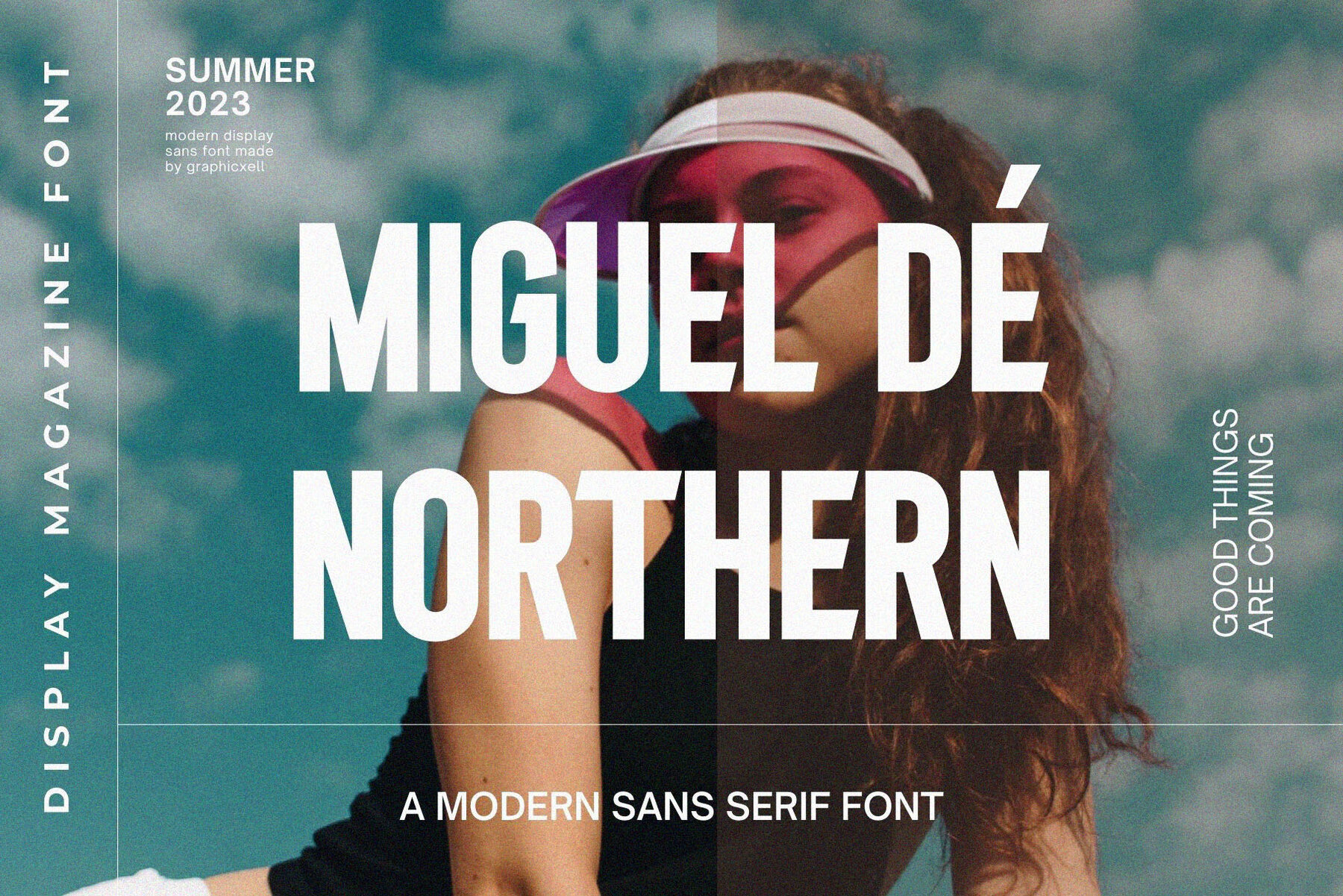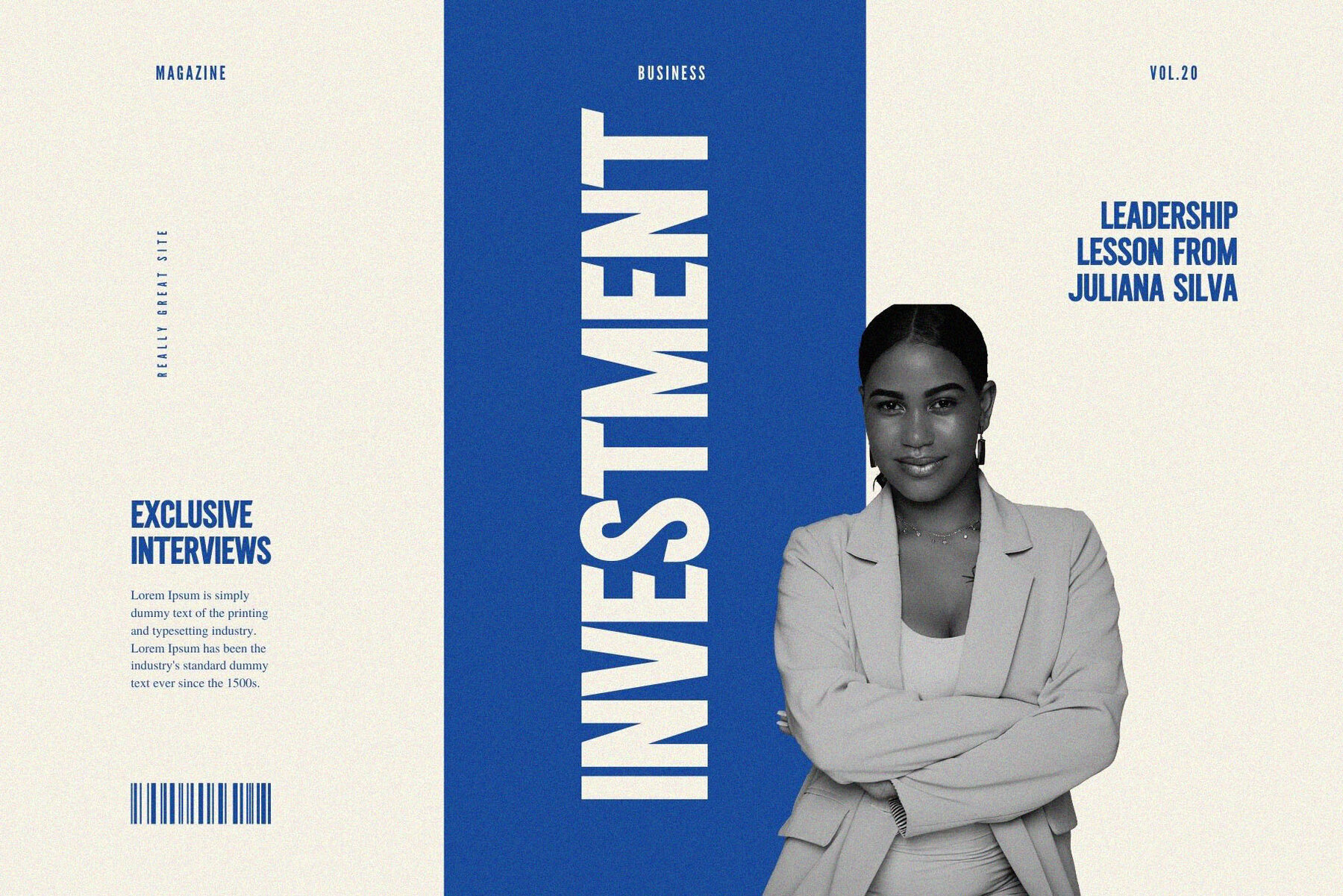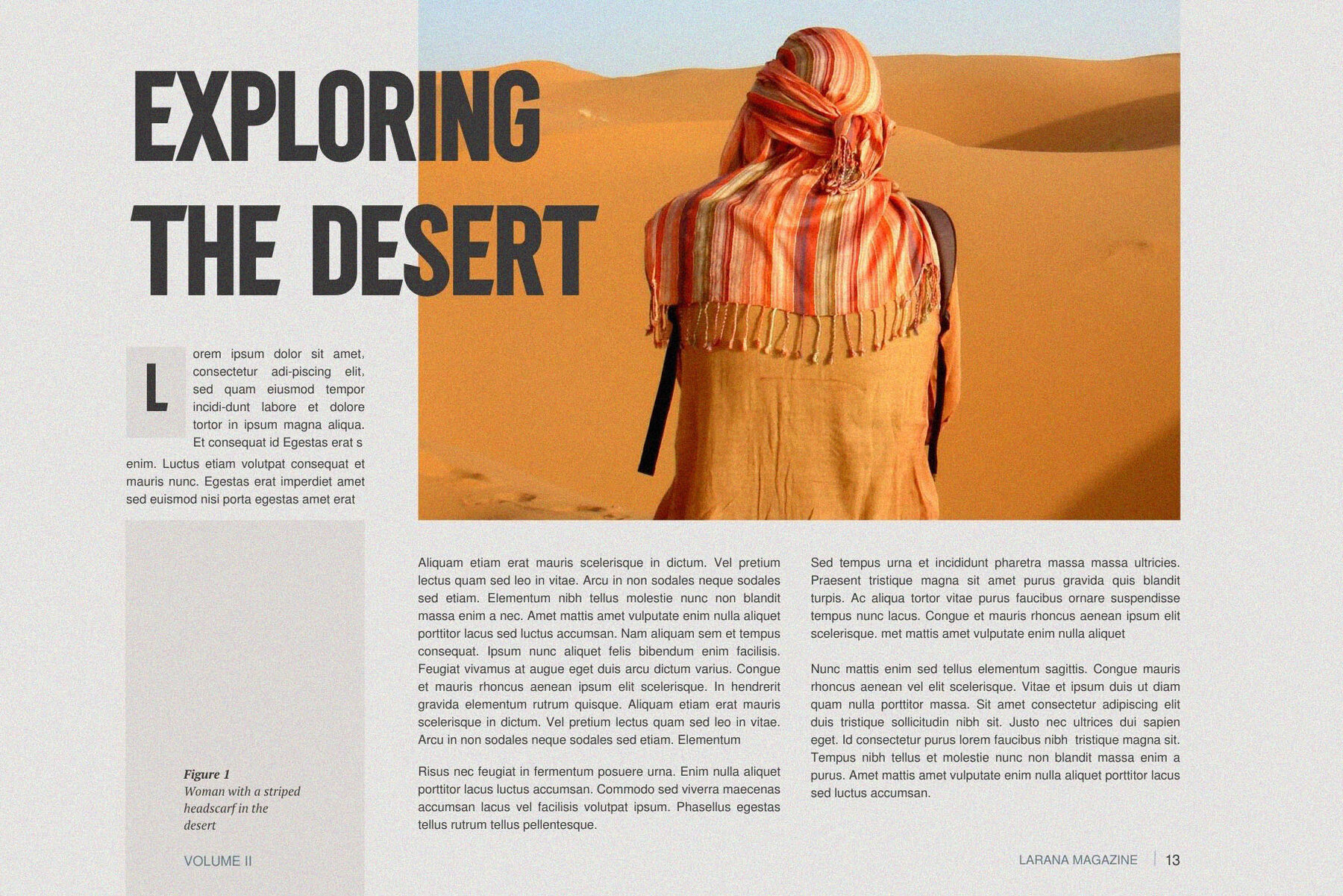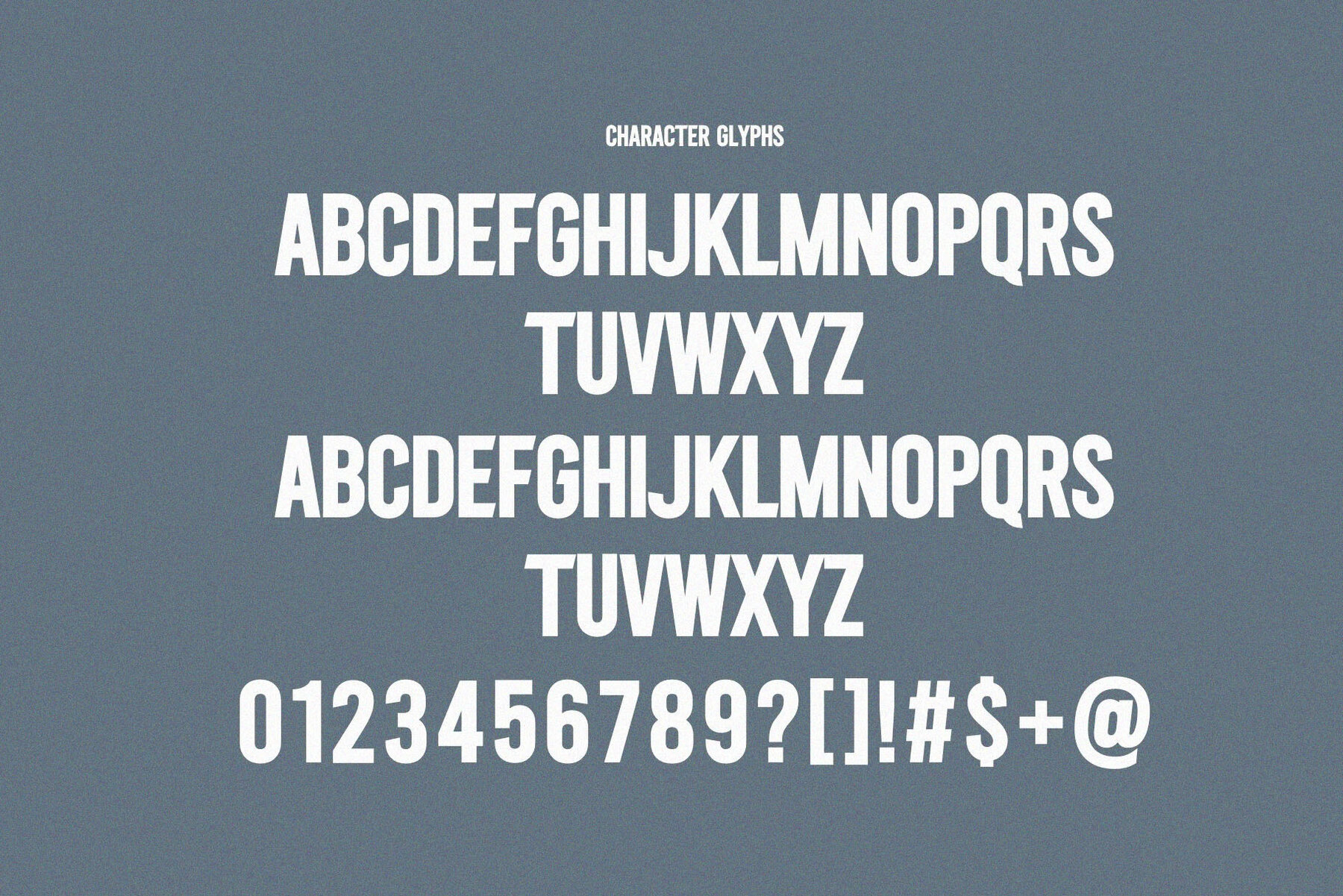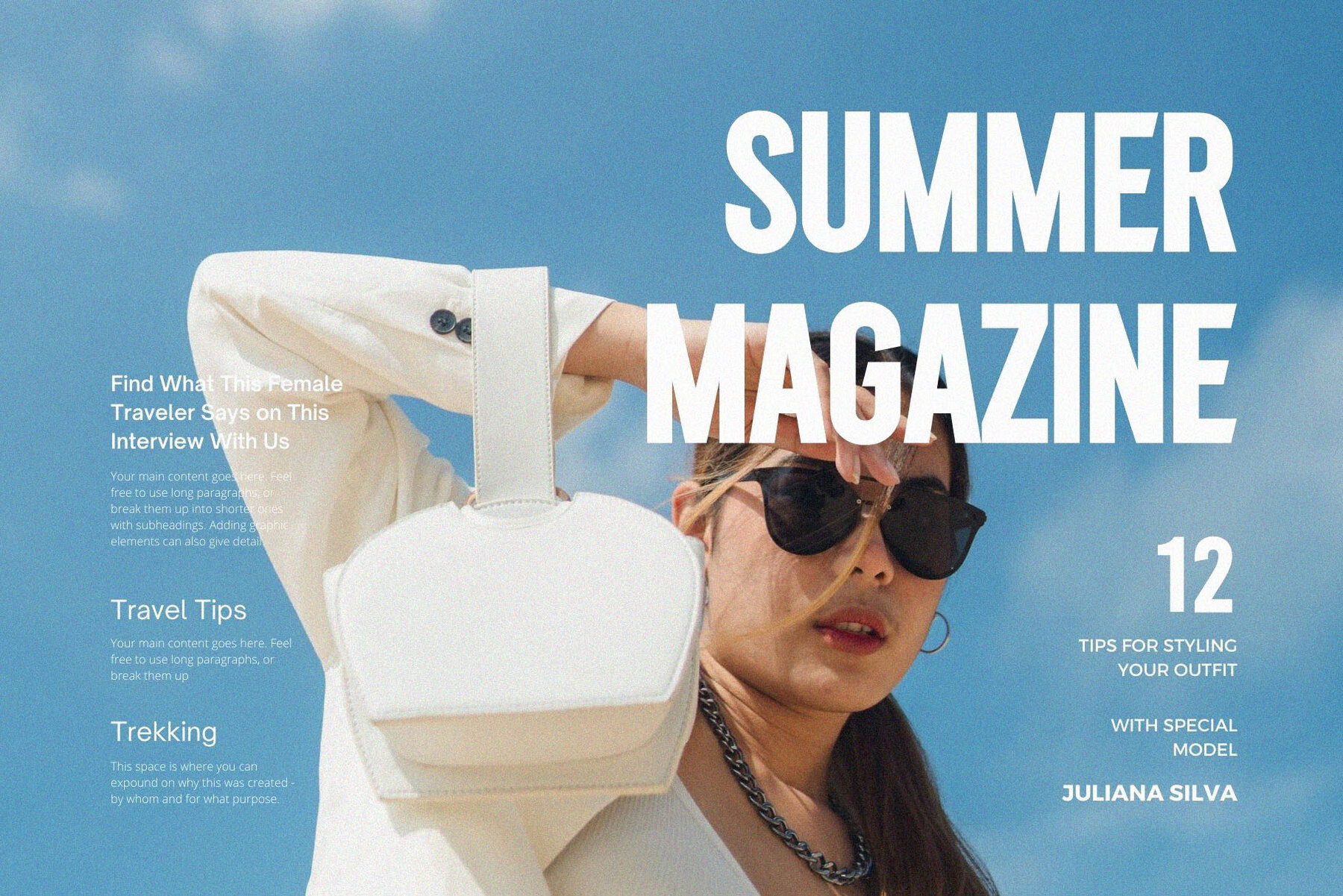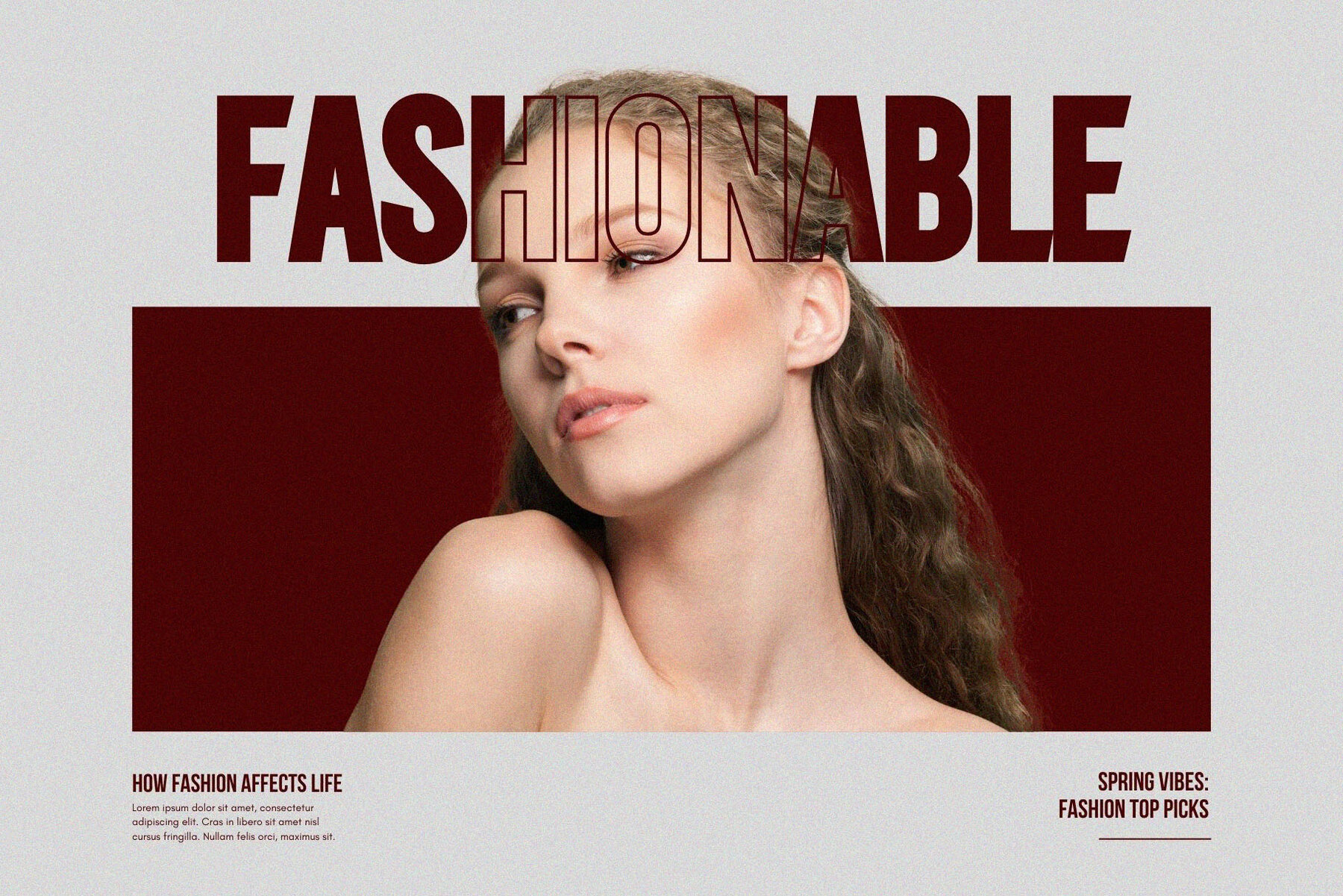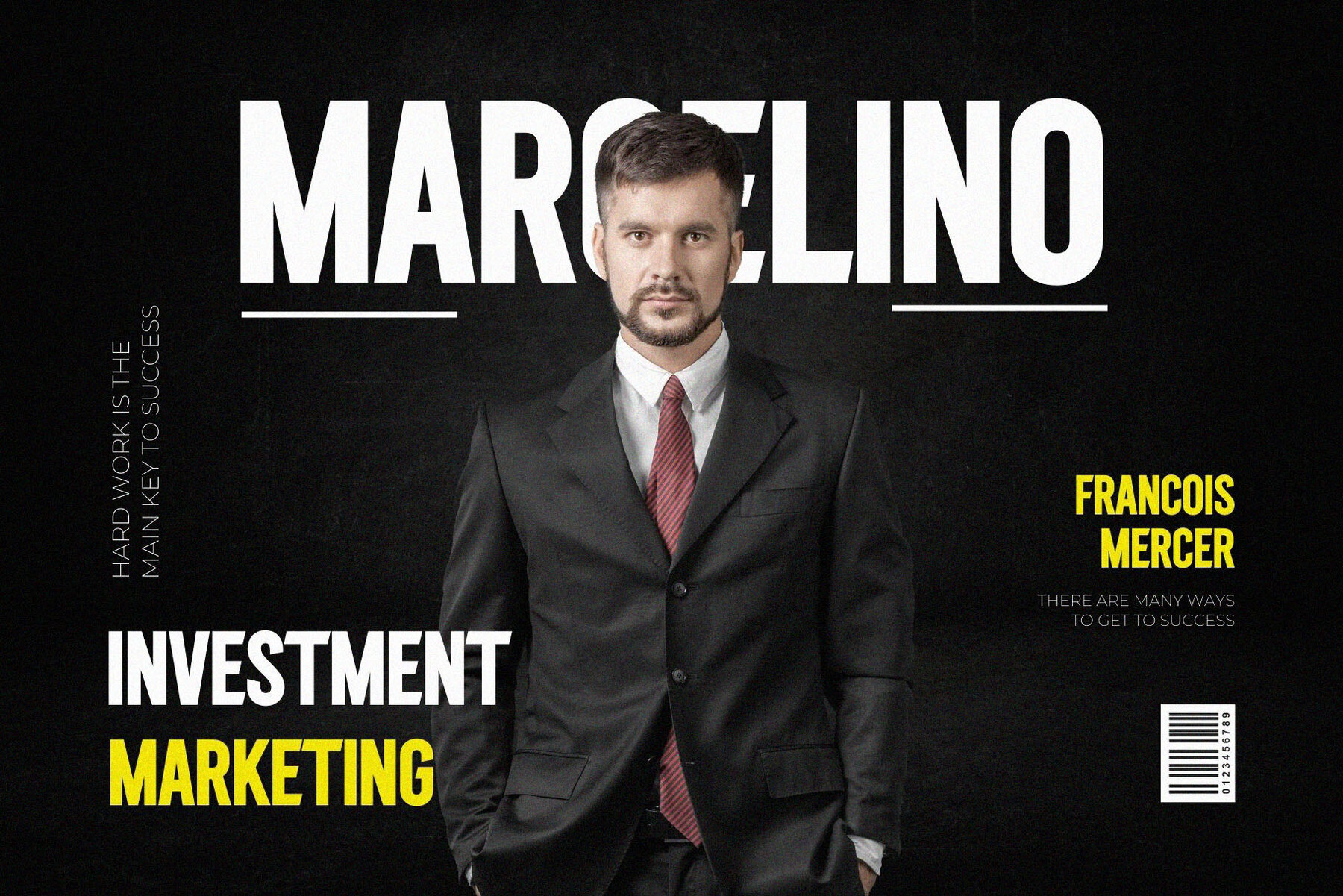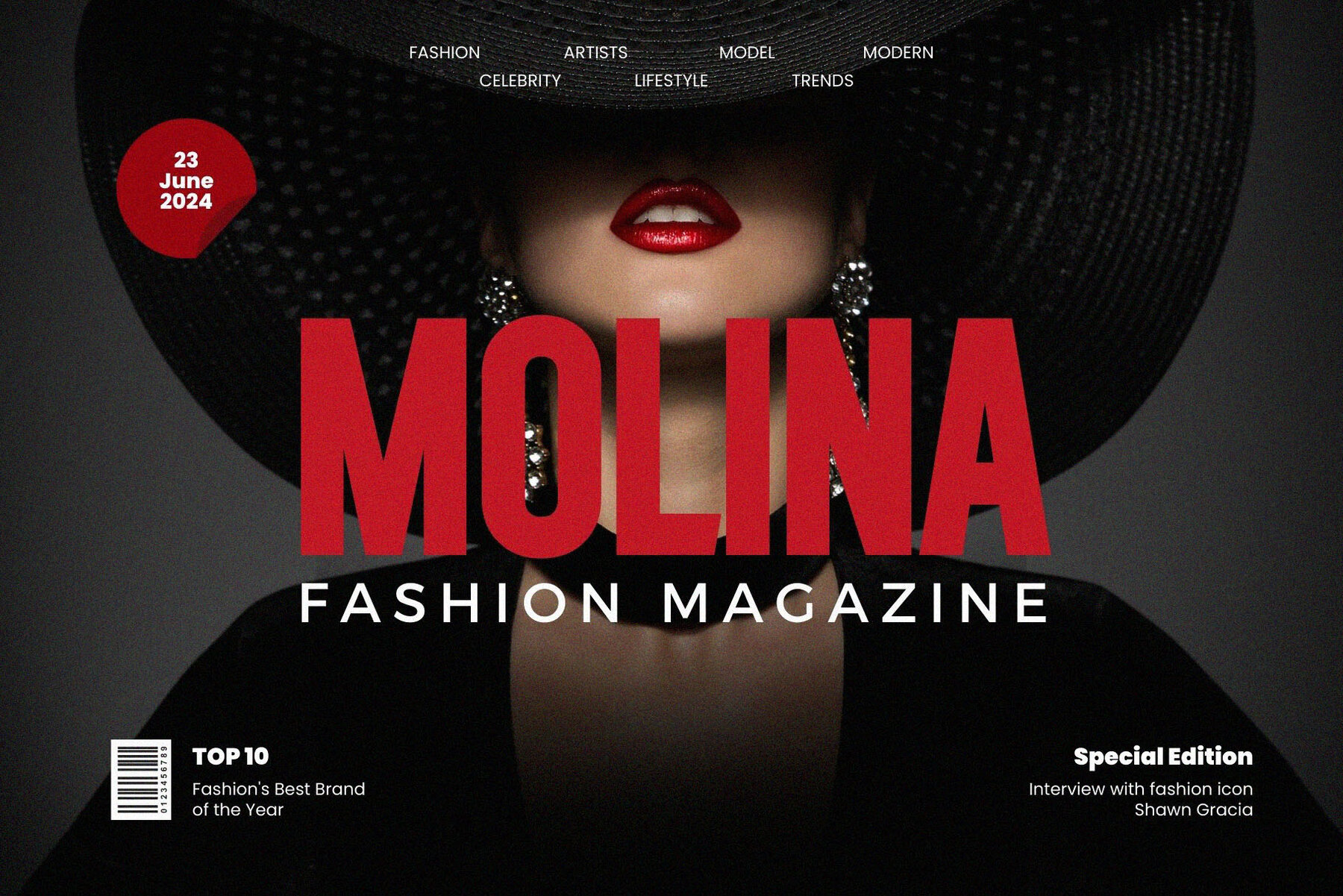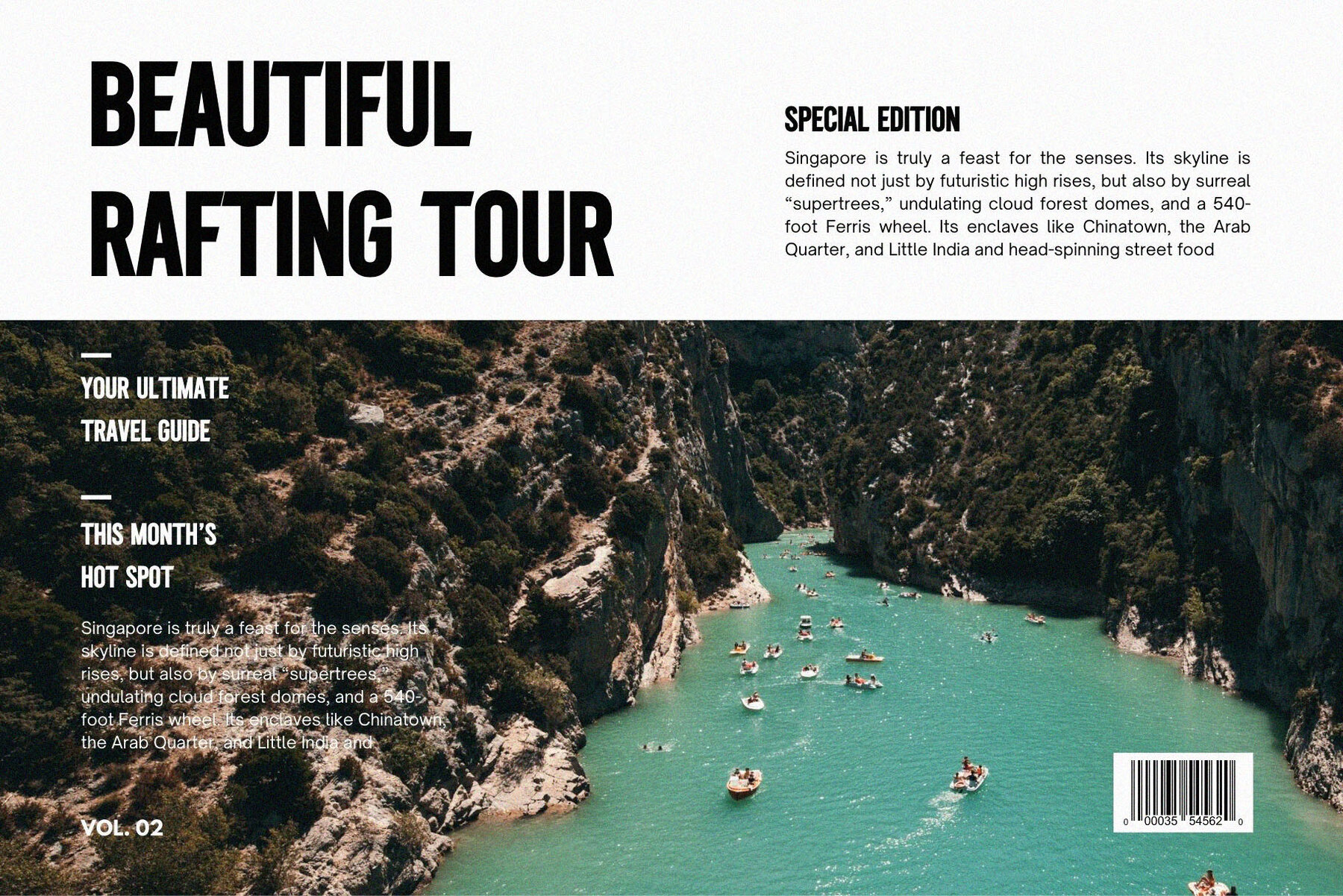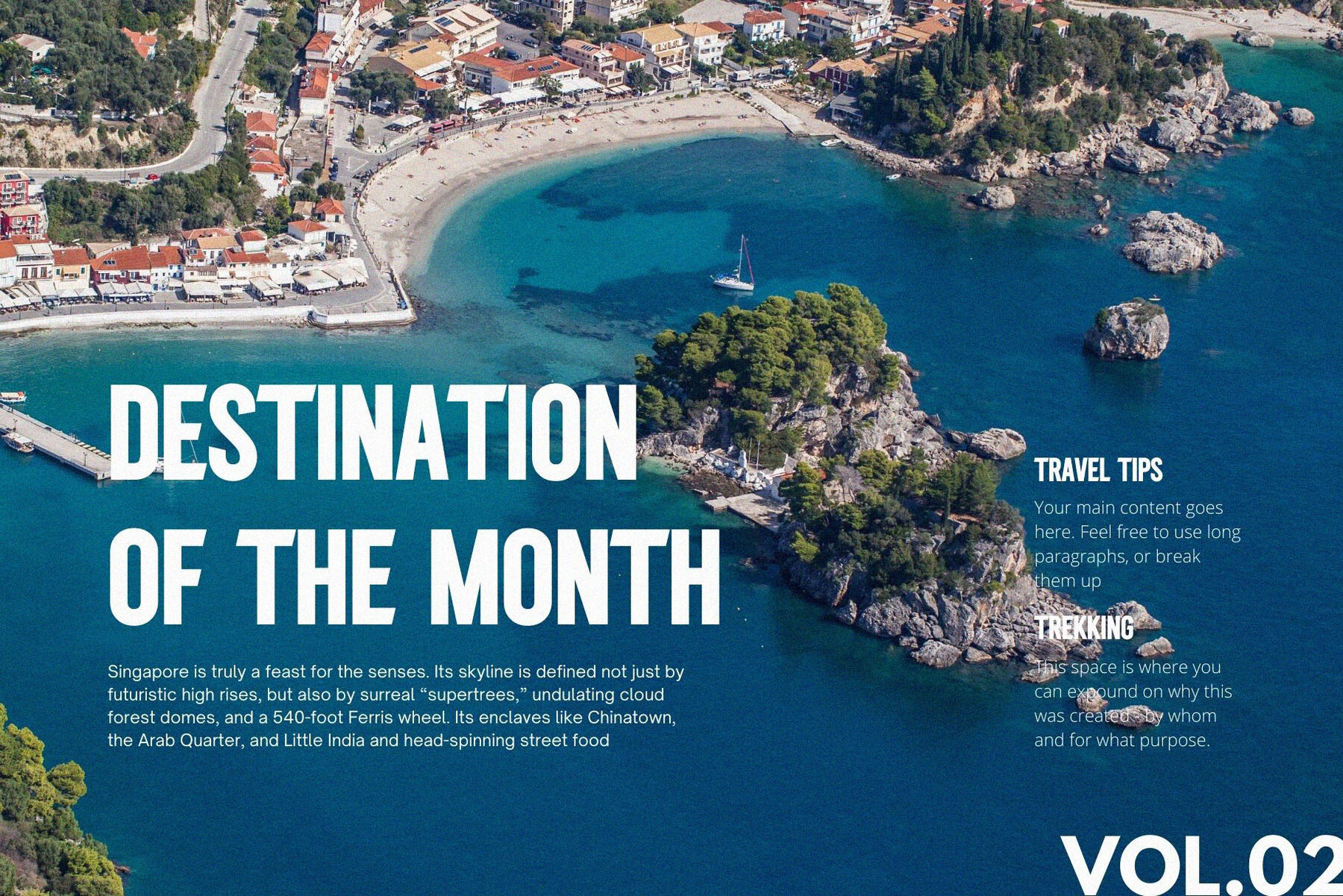
Miguel De Northern Font
Miguel De Northern
Inspired by famous minimalist logos, Miguel De Northern offers a distinguished choice for a range of design projects. Ideal for creating templates, brochures, videos, and advertising, this font adds a touch of elegance to branding, logos, invitations, layout designs, and beauty crafting.Miguel De Northern: A Sophisticated Minimalist Font